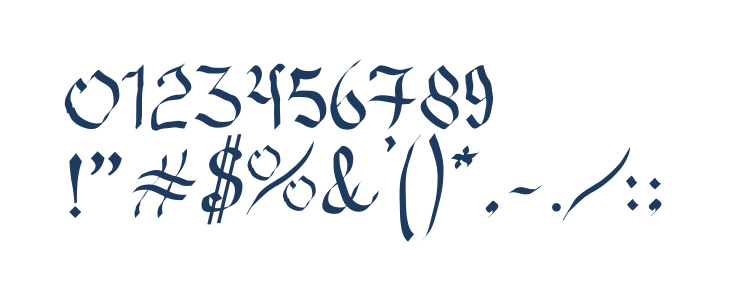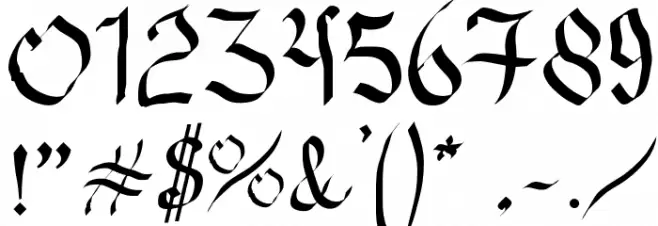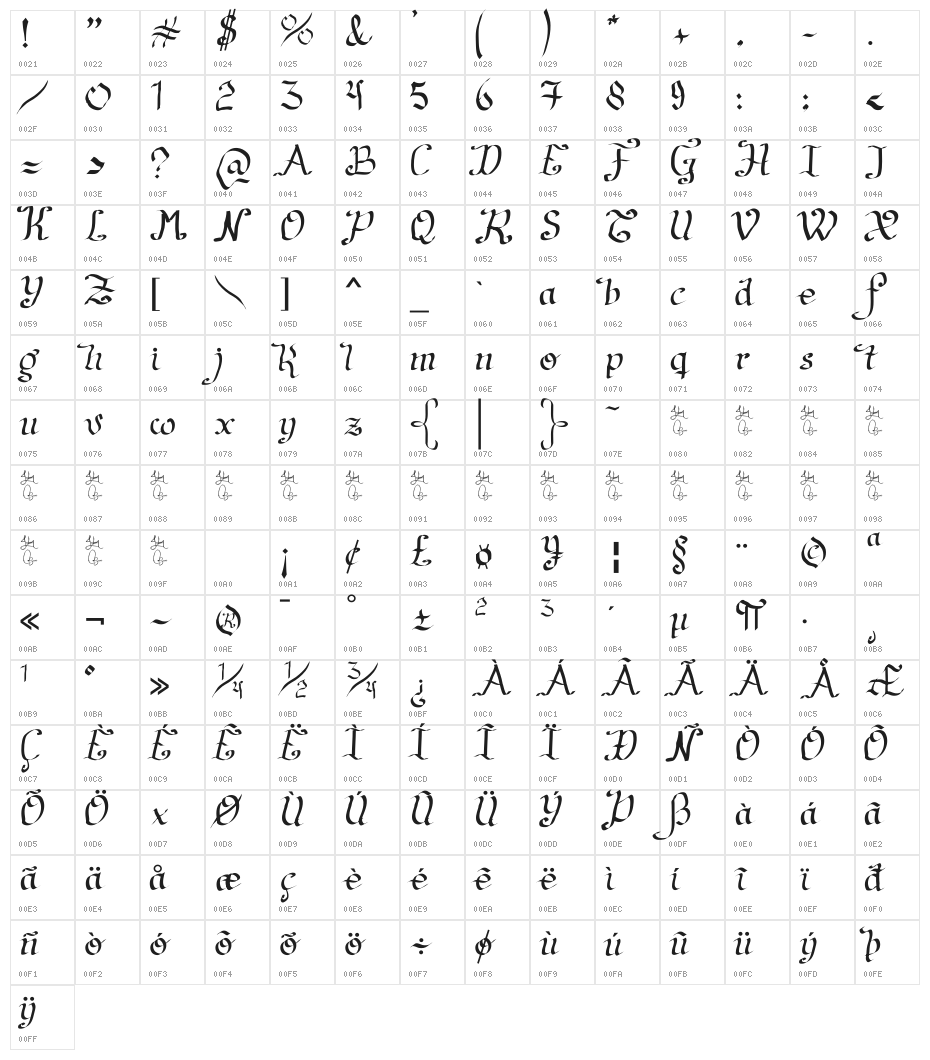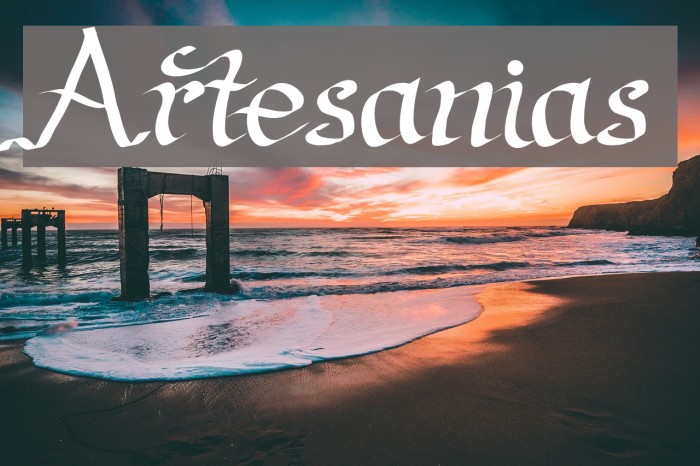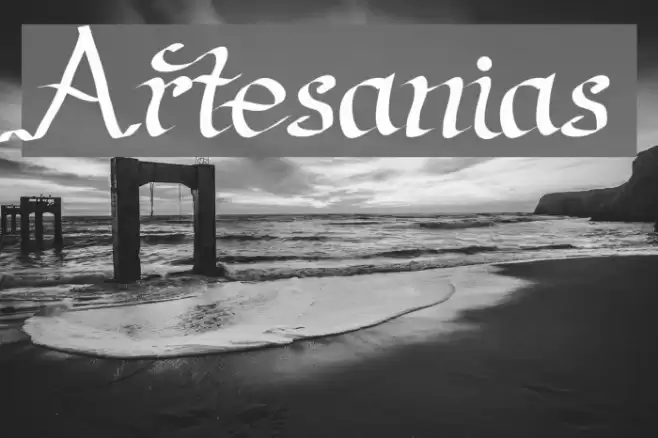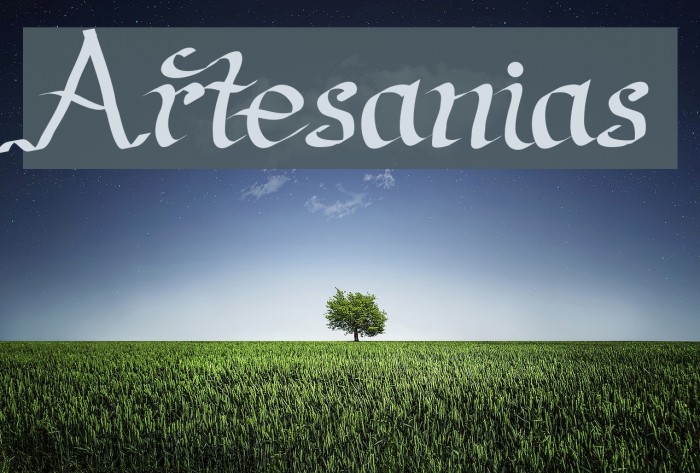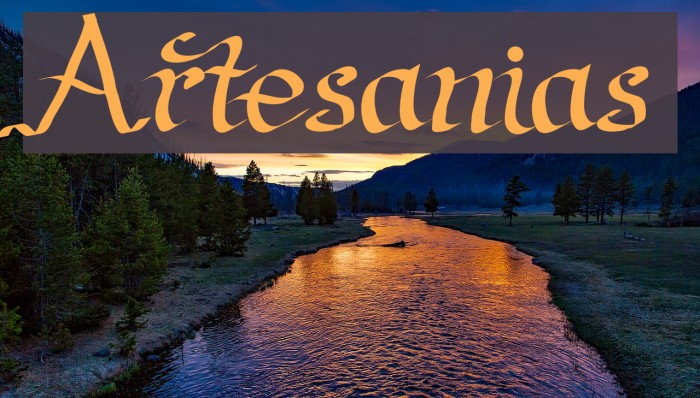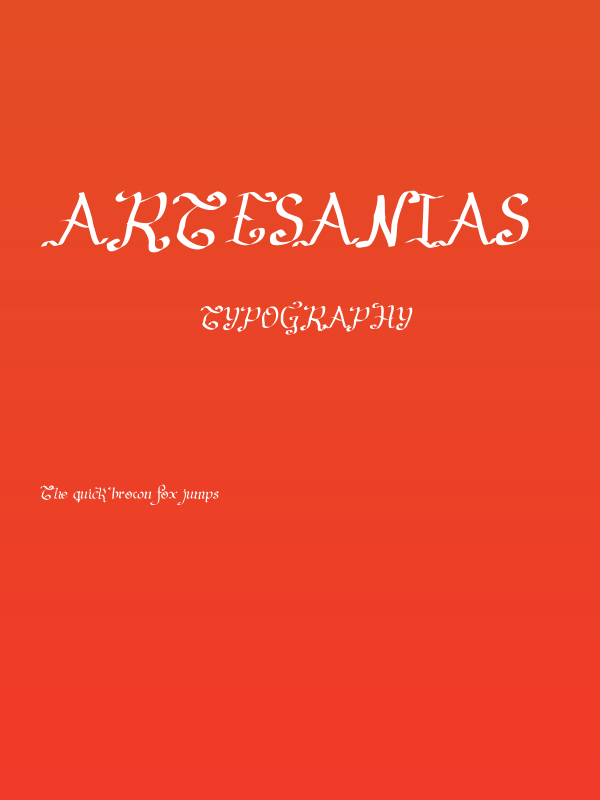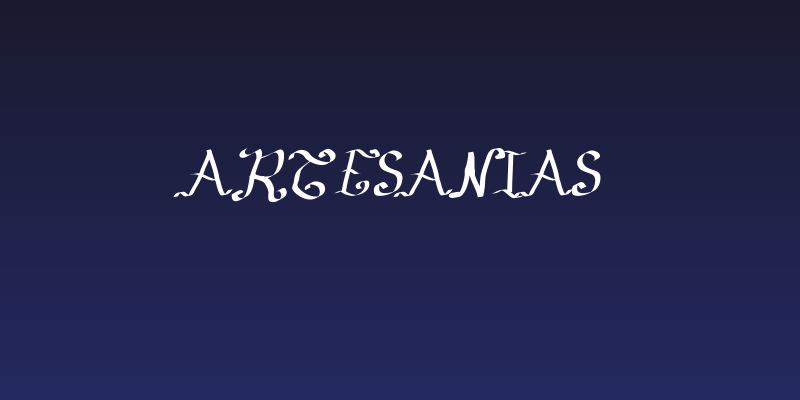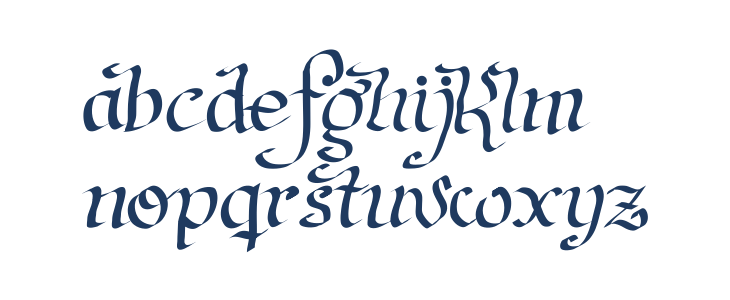
Artesanias Font
Artesanias Description
This font features a decorative and ornate style, reminiscent of traditional calligraphy with a modern twist. The uppercase letters are characterized by intricate swirls and flourishes, giving them a regal and artistic appearance. The lowercase letters maintain a similar aesthetic, with elegant curves and a slightly condensed form. The numerals are bold and distinctive, following the same decorative theme. Special characters are equally ornate, adding a cohesive look to the entire set. The overall design is highly stylized, making it suitable for projects that require a touch of elegance and sophistication.